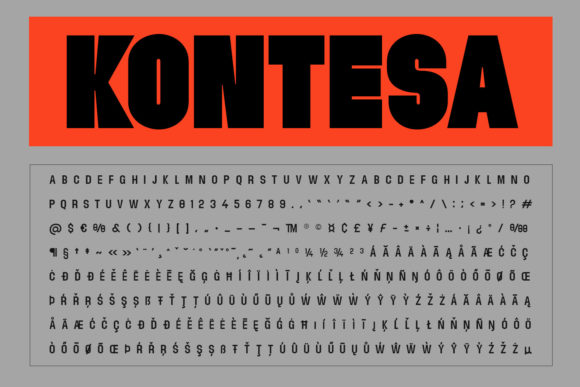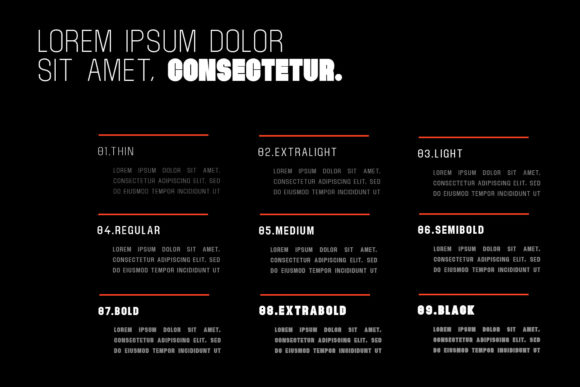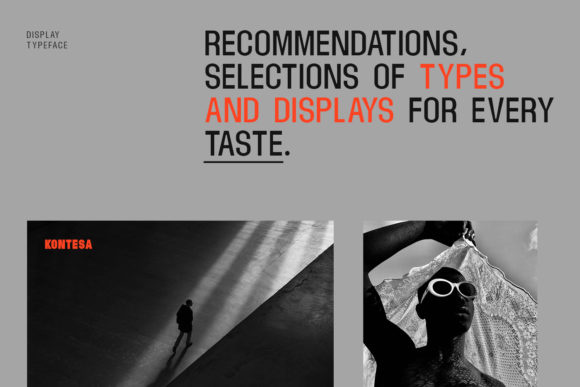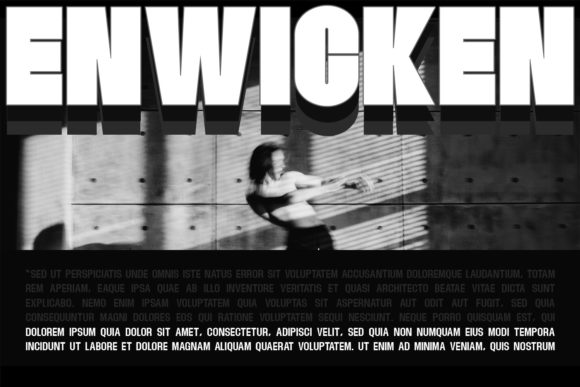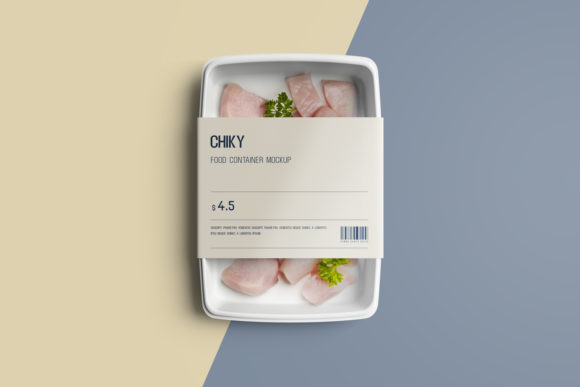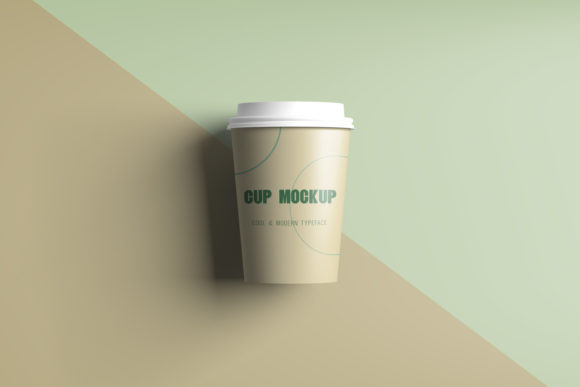
Introduction to Kontesa Font
As a designer, have you ever stumbled upon the perfect font to elevate your creative project, only to realize it’s no longer available for download or has an awkward transparent background that throws off your entire design? I’m sure many of us have been there. But what if I told you about a game-changing display font that’s about to revolutionize your design workflow?
Meet Kontesa Font, a cool, bold, and adaptable display font that’s sure to make your creations stand out. With its high-quality design and limitless options, Kontesa Font is the ultimate design resource for any creative project. Whether you’re a seasoned designer or just starting out, this free download is a valuable addition to your toolkit.
Key Features of Kontesa Font
- High-quality design resource ideal for creative projects, including logos, branding, and graphics.
- Designed with a unique aesthetic, making it perfect for projects that require a touch of elegance and sophistication.
Honest Review: Kontesa Font
I recently stumbled upon the Kontesa Font, a design resource that caught my attention with its elegant and sophisticated style. As a designer, I was excited to see how it would perform in various creative projects.
The Kontesa Font is available for free download, which is a huge plus for designers on a budget. The font is also highly customizable, making it easy to adjust the settings to fit your specific needs. I was impressed with the high-quality design and the wide range of weights and styles available.
- ✨ Elegant and sophisticated design
- ✨ Highly customizable
- ✨ Wide range of weights and styles
- ⚠️ Not ideal for bold or italic text
Overall, I’m impressed with the Kontesa Font and would definitely consider using it in future creative projects. Its high-quality design and wide range of customization options make it a valuable resource for designers. Just be aware of the limitations and make sure it meets your specific needs.
Kontesa Font
The Kontesa Font is a versatile design resource ideal for creative projects that demand high-quality typography. With its elegant and refined style, this font is perfect for a variety of applications.
Tips for Getting the Most Out of Kontesa Font
To maximize the effectiveness of the Kontesa Font, consider the following tips:
- Use the font in combination with other high-quality design elements.
- Experiment with different font sizes and colors to achieve the desired visual impact.
- Ensure the font is legible on various devices and screen sizes.
The Kontesa Font is ideal for a variety of creative projects, including:
- Business
Can I use the Kontesa Font for digital projects, such as e-books and mobile apps?
Yes, the Kontesa Font is suitable for digital projects, including e-books, mobile apps, and websites. Its high-quality design ensures that it will display well on various devices and screen resolutions. However, be aware that some digital platforms may have font size or style limitations, so it’s essential to test the font in your specific project before finalizing your design.